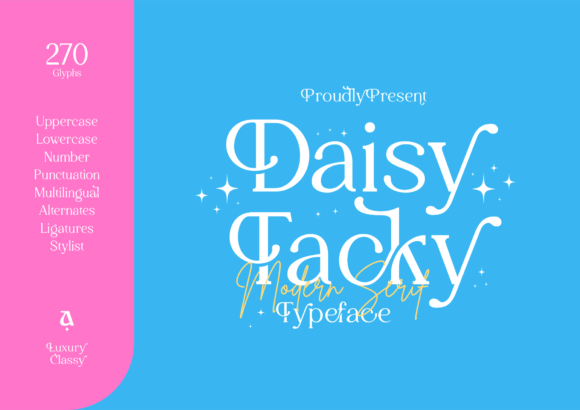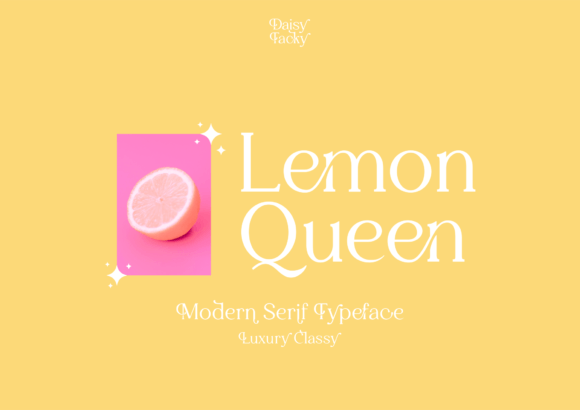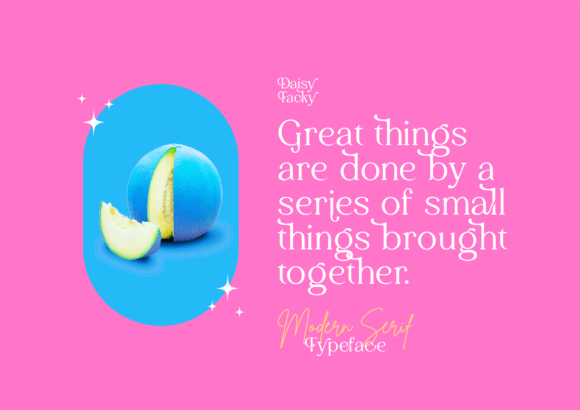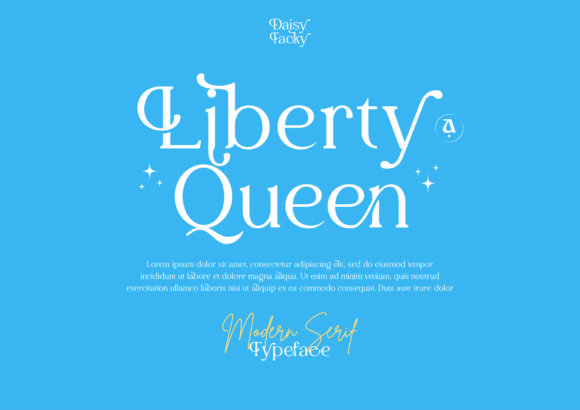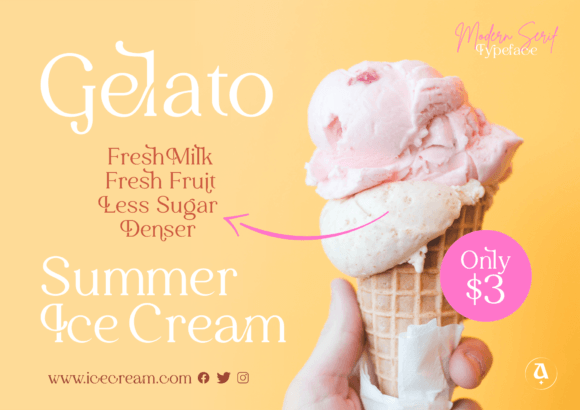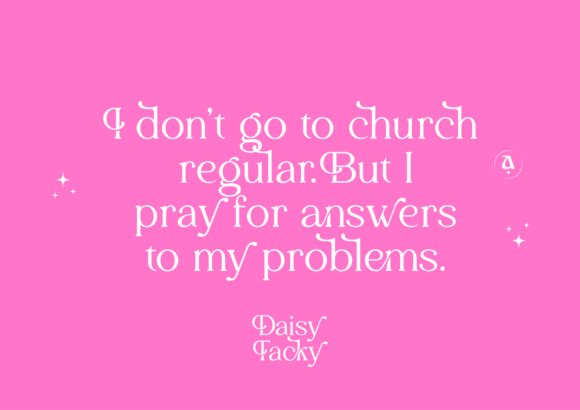
I’ll never forget the time I was working on a branding project for a new coffee shop. The client had a clear vision of what they wanted, but I was struggling to find the perfect font to match their quirky yet sophisticated vibe. I scoured the internet, tried out countless fonts, but nothing seemed quite right. That was until I stumbled upon Daisy Tacky Font ✨. With its elegant serif design and extensive character set, it was love at first sight!
An Honest Review of Daisy Tacky Font
So, what makes Daisy Tacky Font so special? Let’s dive into the good stuff and a few quirks I’ve discovered.
- ✨ Classy Display Serif: Daisy Tacky Font boasts a sophisticated serif design perfect for making a statement.
- ✅ Extensive Character Set: With over 270 characters, including uppercase, lowercase, multilingual support, and common characters, you’ll have everything you need.
- 📦 Versatile: Ideal for logos, social media posts, product packaging, and more.
- 🤔 Learning Curve: With so many features and characters, it might take some time to get familiar with all the possibilities.
While the exact inspiration behind Daisy Tacky Font remains a mystery, it’s clear that the designer aimed to create a versatile and elegant serif font. Perhaps the designer wanted to evoke the charm of classic typography with a modern twist, suitable for both digital and print projects. The result is a font that’s both timeless and trendy.
Q: Is Daisy Tacky Font suitable for body text?
A: While Daisy Tacky Font is primarily designed as a display font, its legibility and extensive character set make it versatile enough for use in body text, depending on the project requirements.
| Font Name | Daisy Tacky Font |
| Author | Artchitype Studio |